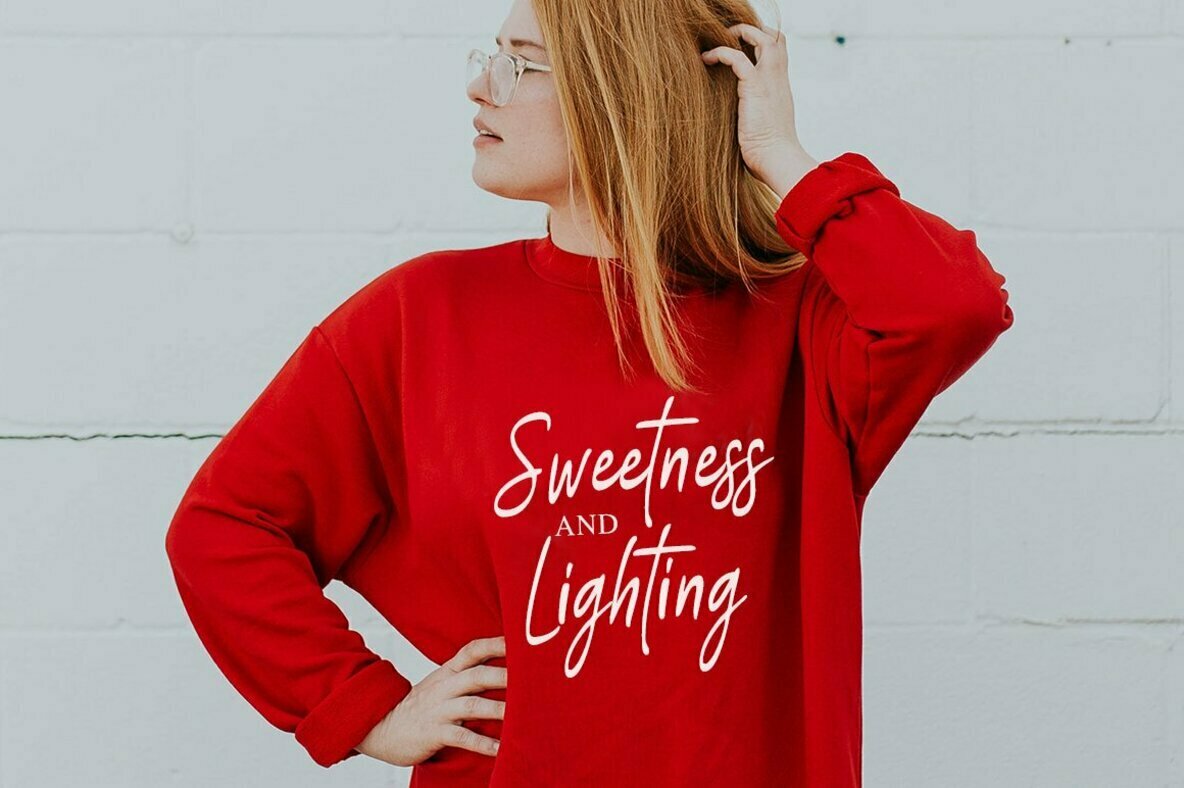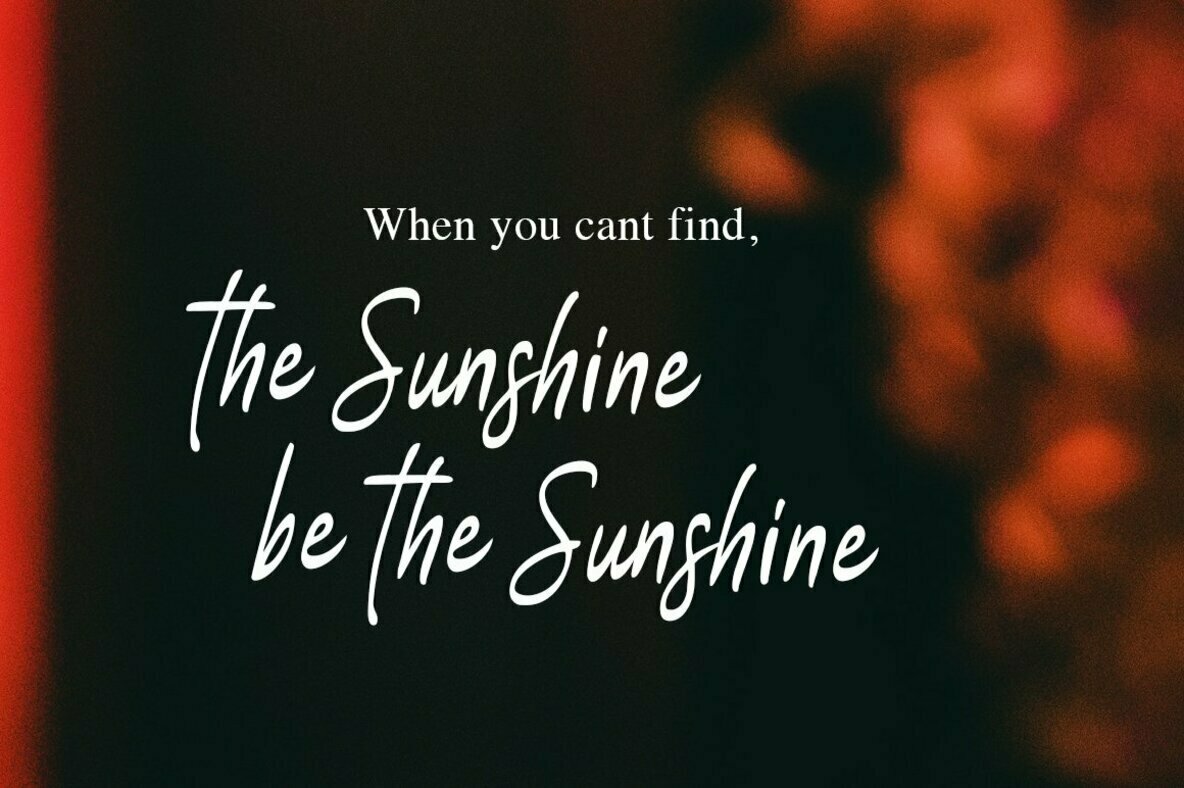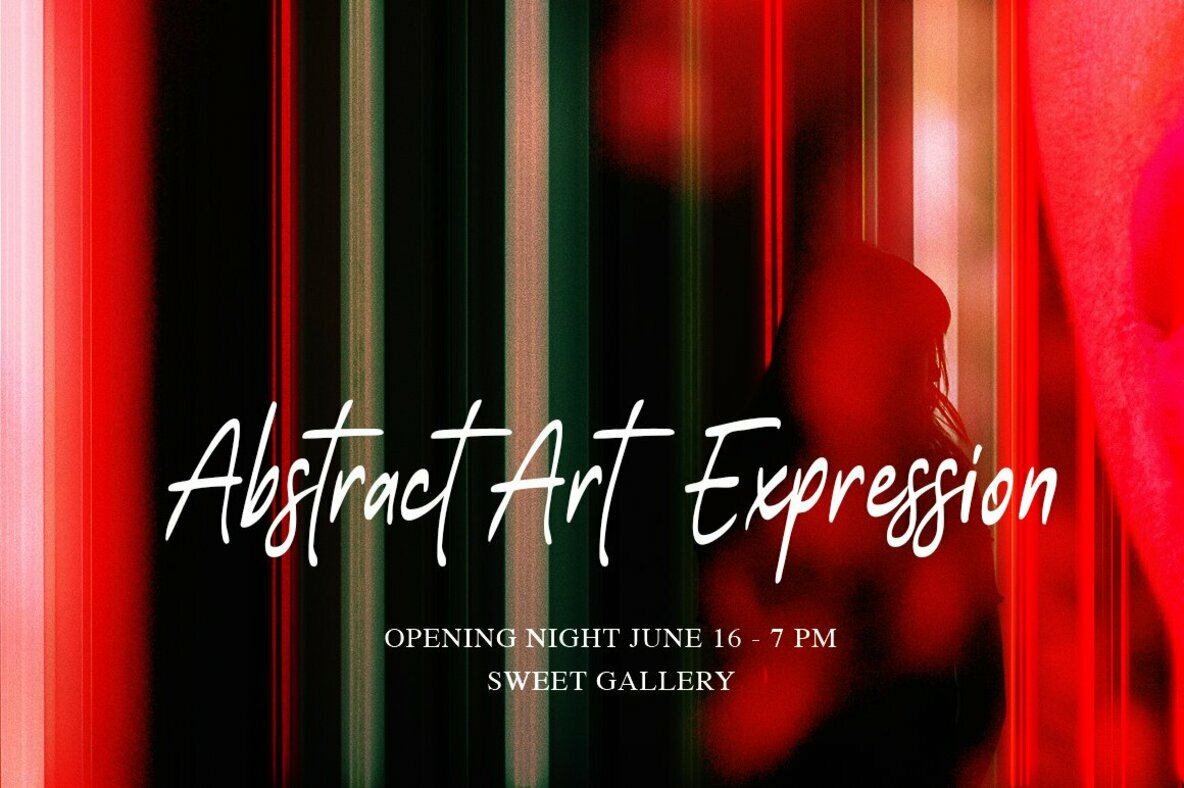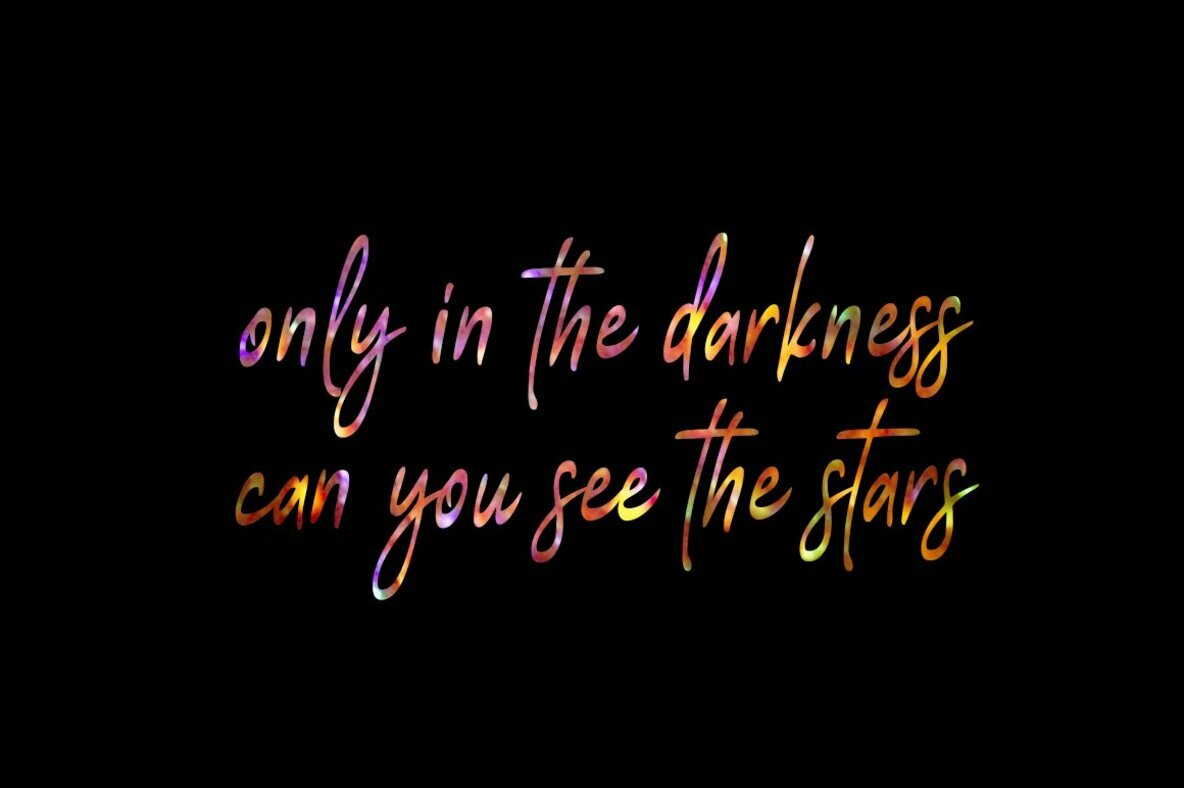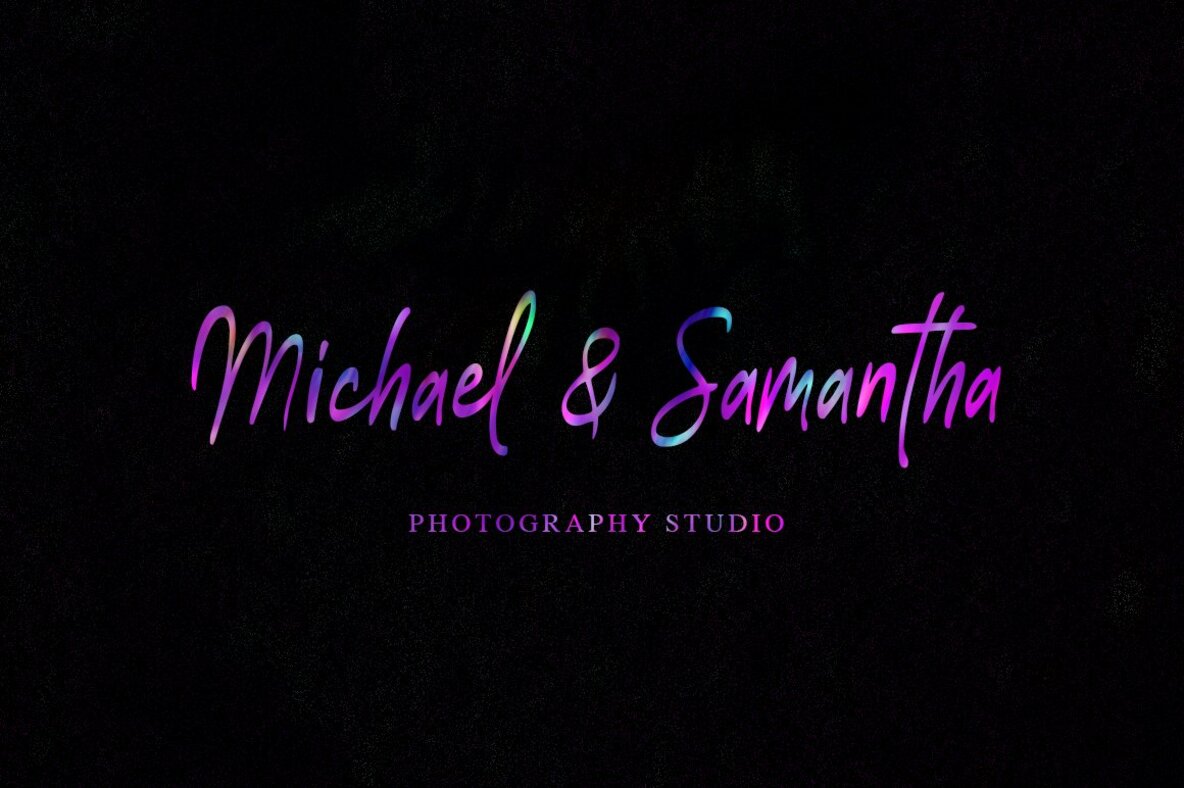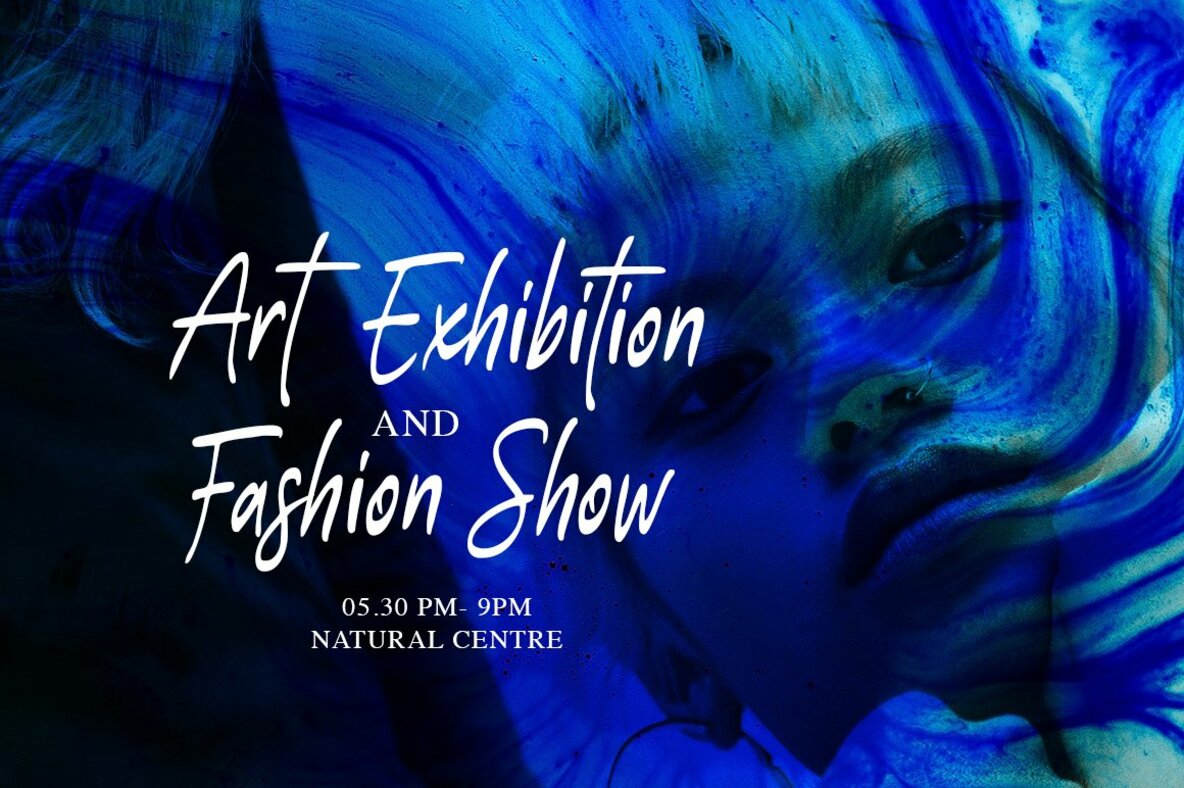
Gistela Font
Gistela
Gistela captures the essence of contemporary design with its elegant handwritten script. Crafted to enhance modern creative projects, it brings a personal touch while remaining versatile across different applications. Whether you're designing a logo, crafting a unique invitation, or developing stylish business materials, Gistela's elegant strokes and modern appeal make it an ideal choice.Gistela: A Fashionable Handwritten Script